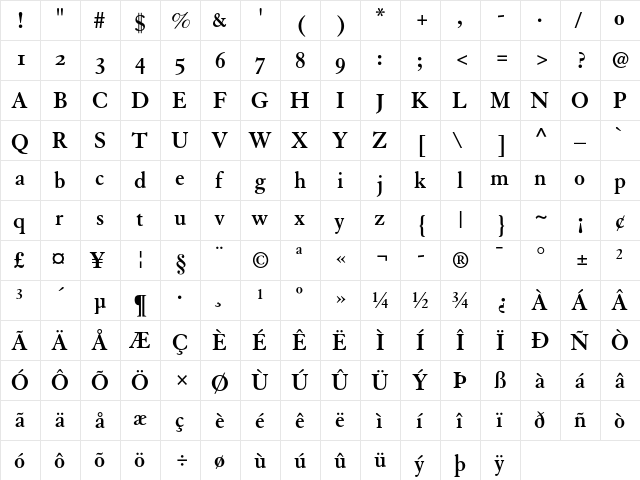
Granjon Bold OsF
Design Context for Granjon Typeface
Granjon takes a measured approach to typography — its balanced proportions and neutral character make it a reliable workhorse for both digital and print work. Its bold stroke weight gives it real presence on the page.